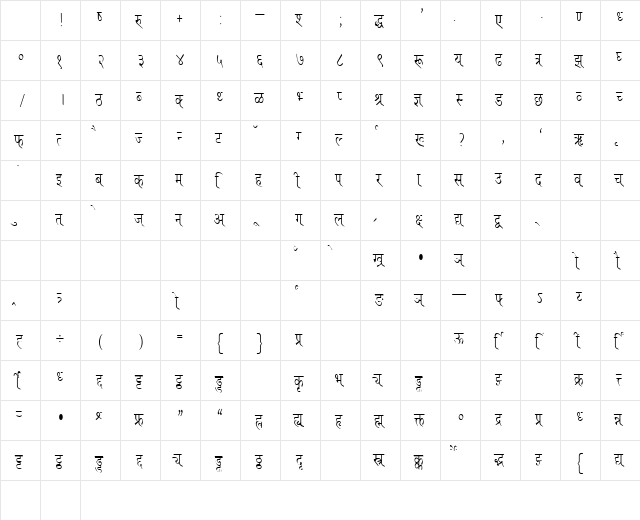
DevLys 110 Condensed Normal
Design Context for DevLys 110 Condensed Typeface
DevLys 110 Condensed takes a measured approach to typography — its balanced proportions and neutral character make it a reliable workhorse for both digital and print work. The condensed width makes it efficient for tight spaces without sacrificing legibility.